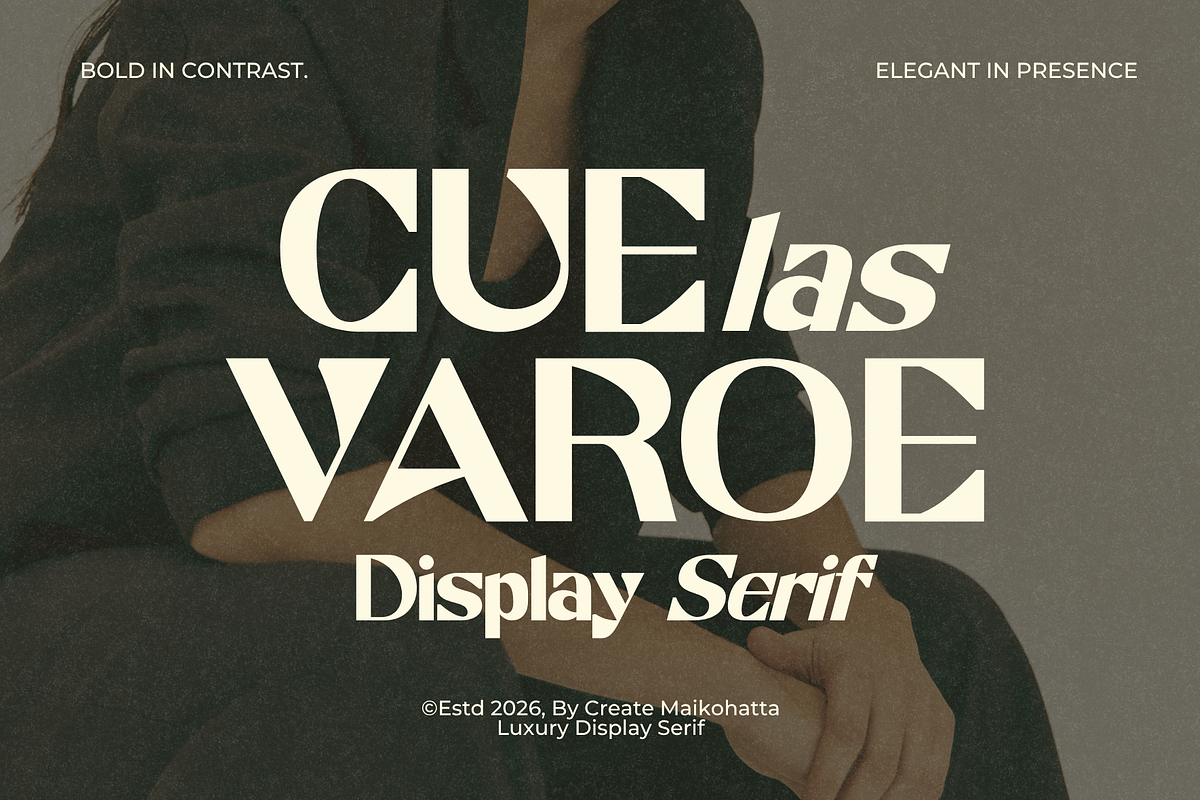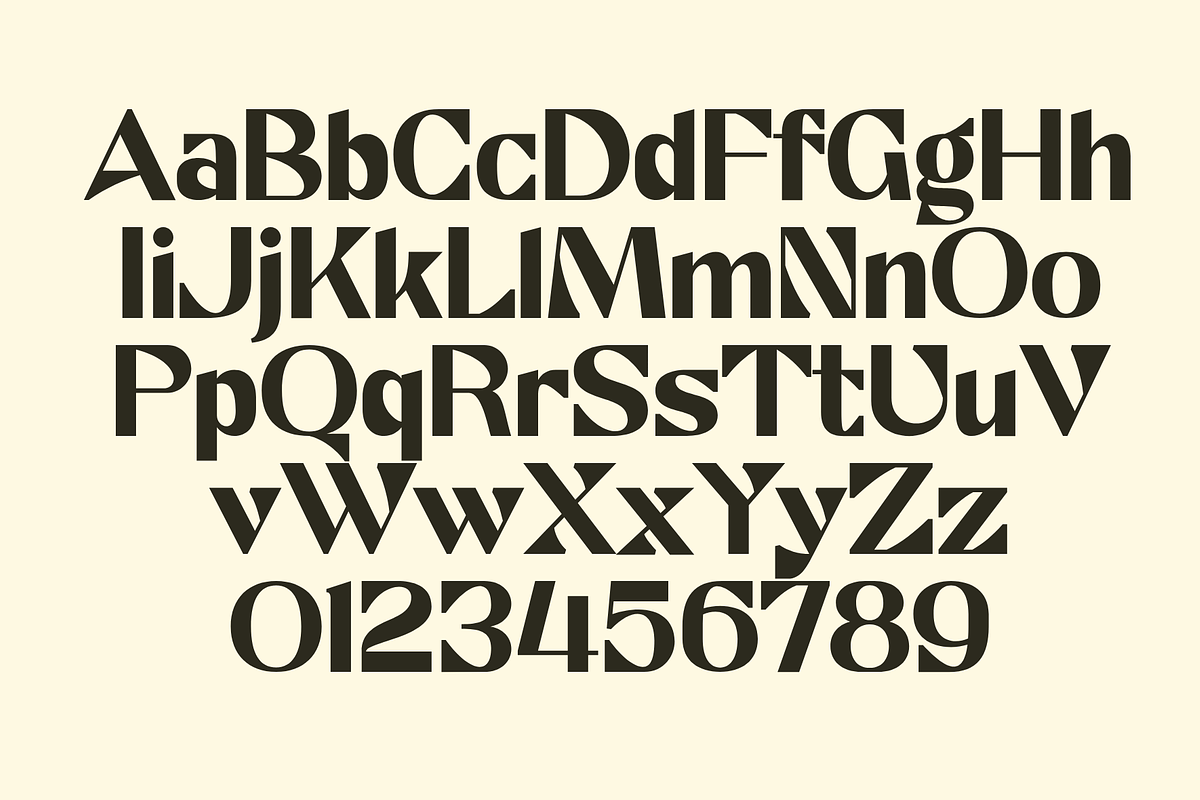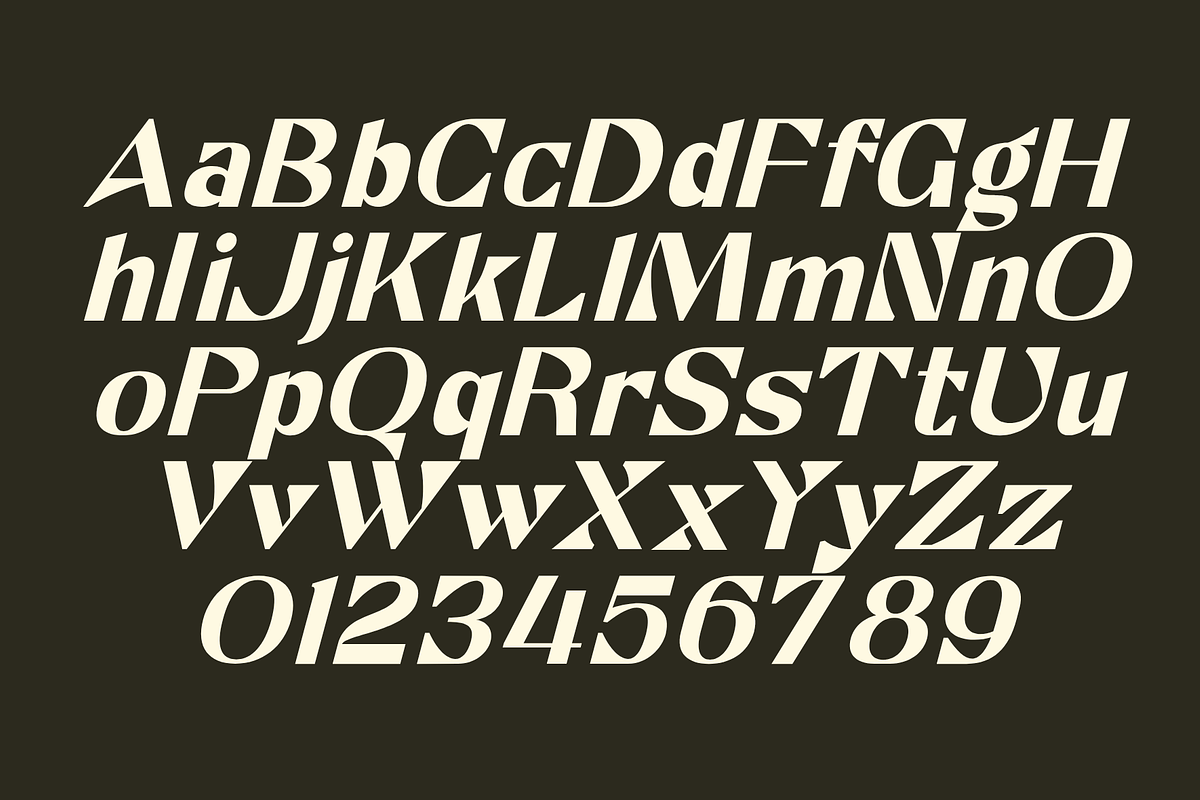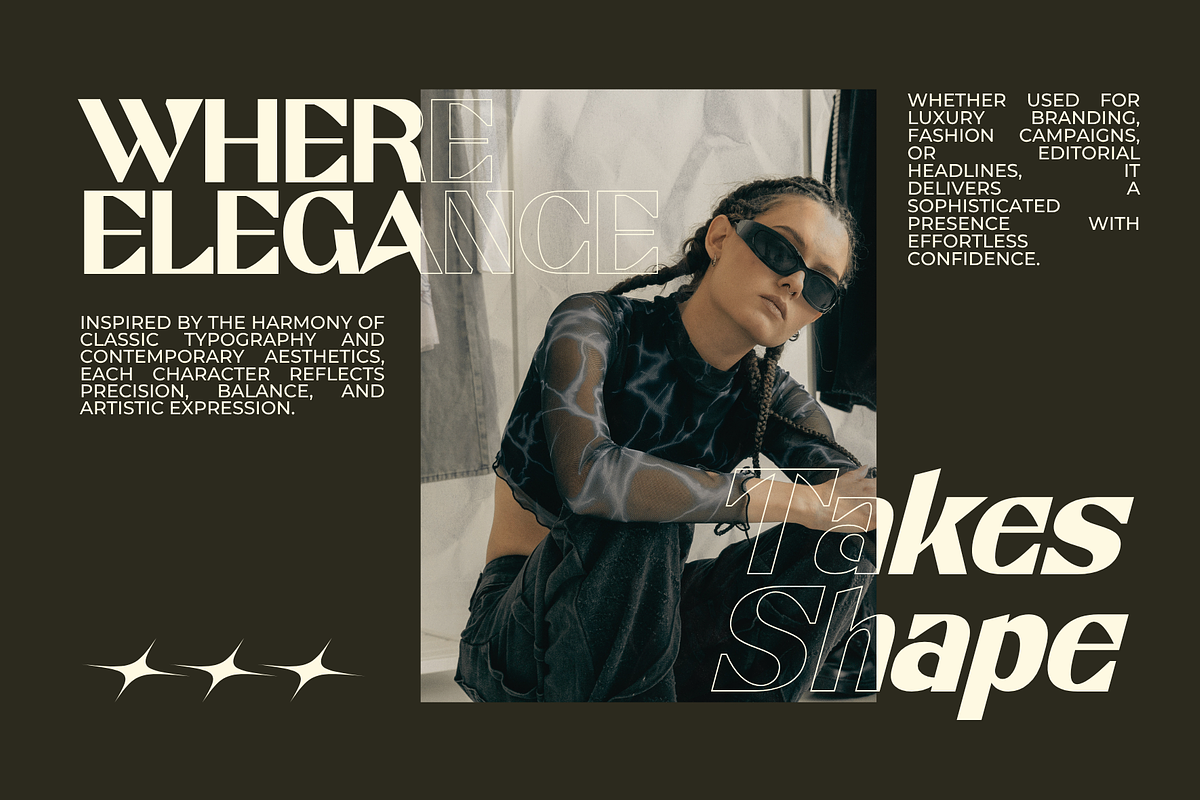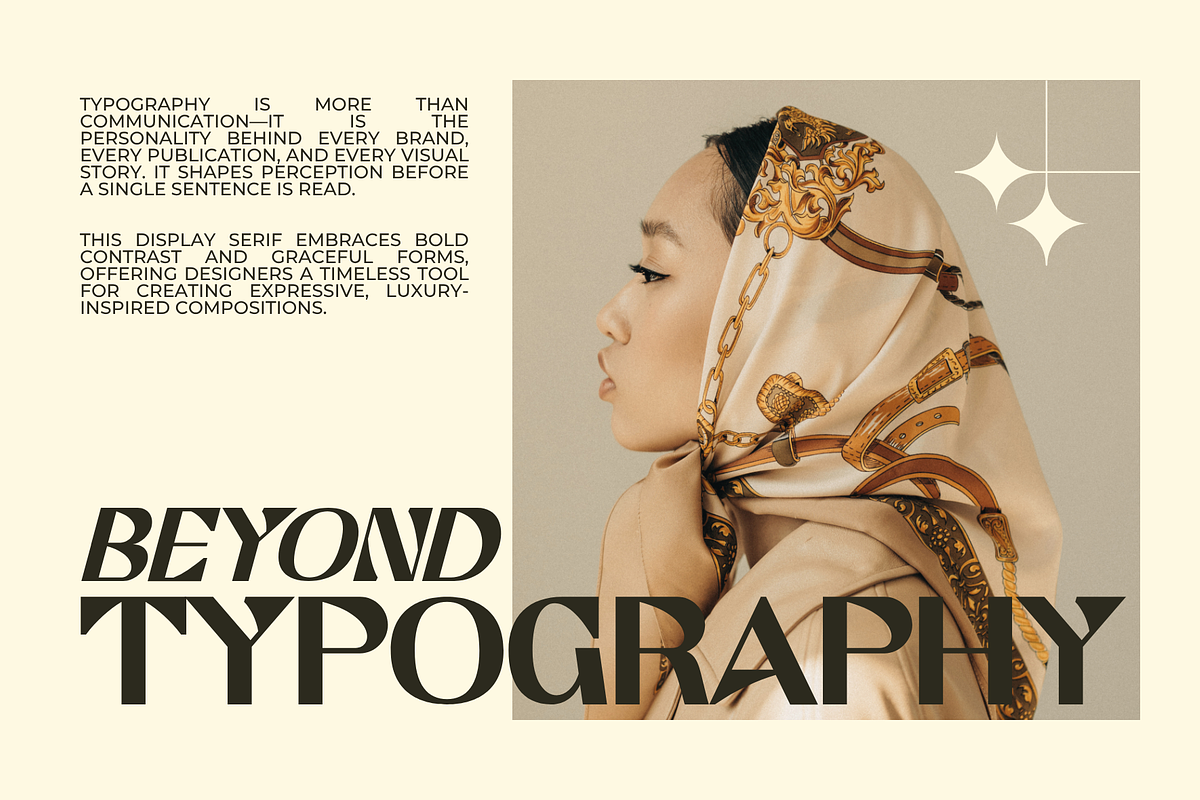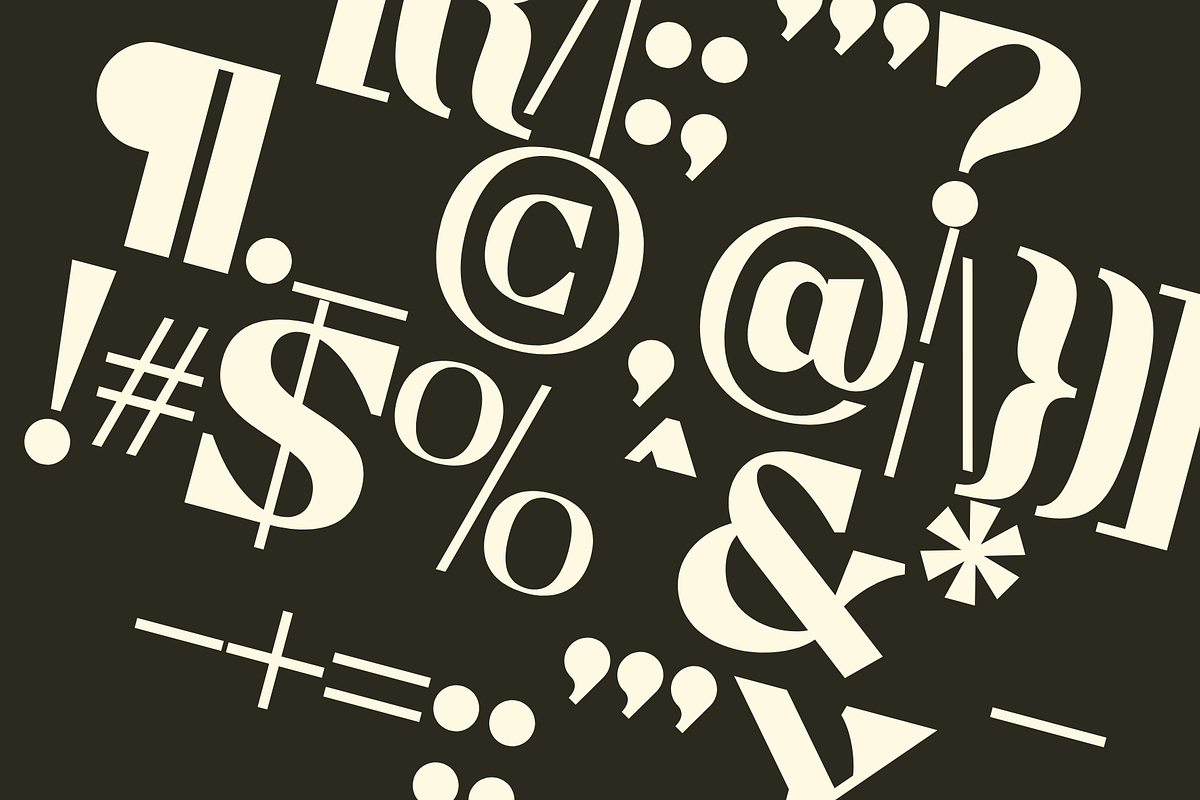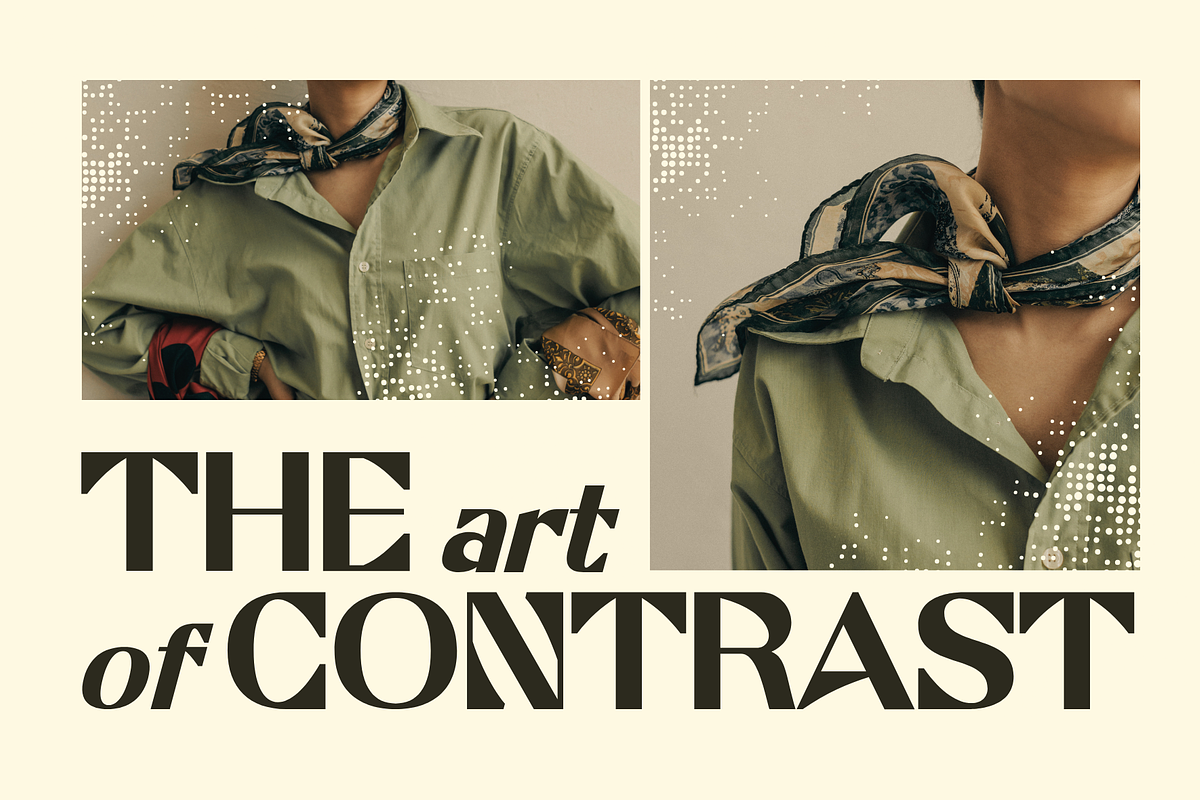
Cuelas Varoe – Luxury Display Serif
Cuelas Varoe – Luxury Display Serif is a bold and elegant display serif typeface designed to make a lasting impression. Featuring dramatic high-contrast strokes, refined curves, and stylish letterforms, Cuelas blends timeless sophistication with a contemporary editorial aesthetic. Its distinctive character makes it perfect for luxury branding, fashion campaigns, premium packaging, magazine headlines, beauty products, logos, and upscale marketing materials.
Created to stand out in large sizes, Cuelas delivers exceptional readability while adding a sense of exclusivity and confidence to every design. Whether you're crafting a modern fashion identity or an elegant editorial layout, this typeface brings refined luxury and visual impact to your creative projects.